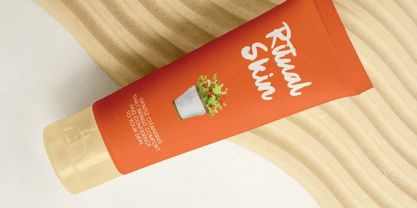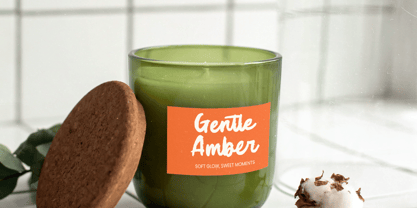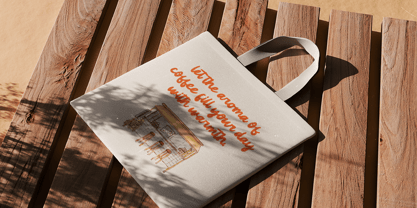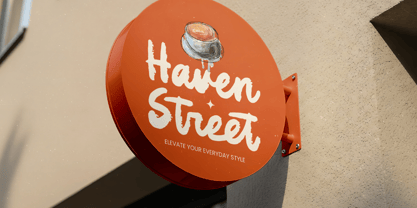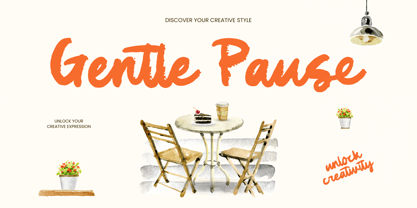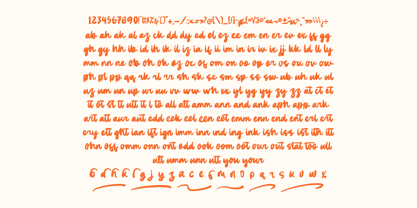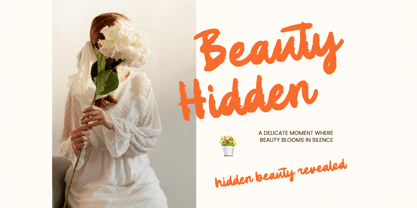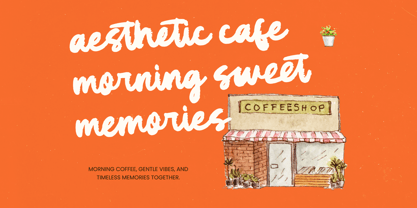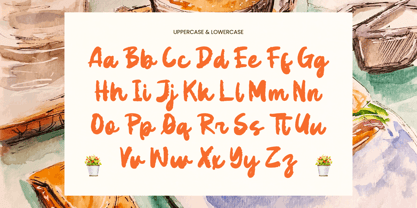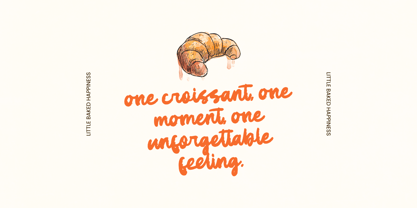
Gentle Pause
A família de fontes Gentle Pause foi desenhada por Heru Utama Putra e publicada pela Letterena Studios. Gentle Pause contém 2 estilos e opções de pacote familiar. Saiba mais sobre esta família
Gentle Pause - Modern Brush
Elevate your creative vision with the Gentle Pause - Modern Brush, a typeface that perfectly balances artisan texture with contemporary elegance. This font captures the essence of hand-drawn artistry, featuring raw, expressive strokes that bring an authentic human touch to any digital canvas. Its dynamic rhythm and organic flow ensure that your messaging feels personal, approachable, and high-end all at once.
Designed for maximum impact, Gentle Pause - Modern Brush is the ultimate choice for luxury branding, lifestyle packaging, and editorial layouts. It is perfect for logo design, social media storytelling, and boutique signage where a distinctive personality is required. Whether you are crafting invitation suites or marketing collateral for the hospitality industry, this font provides the sophisticated edge needed to stand out in a crowded market.